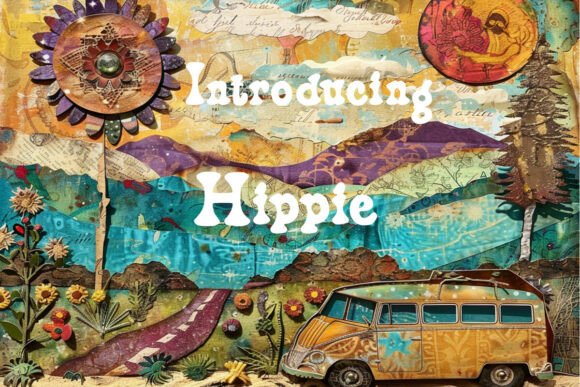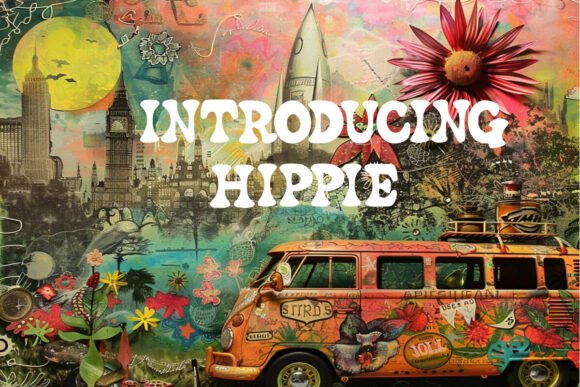
Hippie Font
About the Hippie Font
Experience the unique personality of Hippie Font, a font designed for impact. Introducing Retro Font, the perfect typography choice for an array of creative projects. Its timeless and nostalgic vibe brings an engaging blend of classic and contemporary to your designs. It’s a seamless fit for apparel design such as T-shirts, creating standout stickers, establishing a unique identity in branding, or adding a touch of elegance to magazine layouts. Retro Font is also versatile enough to be used in SVG files, lending an appealing detail to your greeting cards, or being the secret magic ingredient in your Cricut projects. Enliven any poster with its bold charisma or engage your social media audience with its highly readable and charming character. Retro Font is not just a typography, it’s an artistic tool that amplifies the reach and impact of your projects!